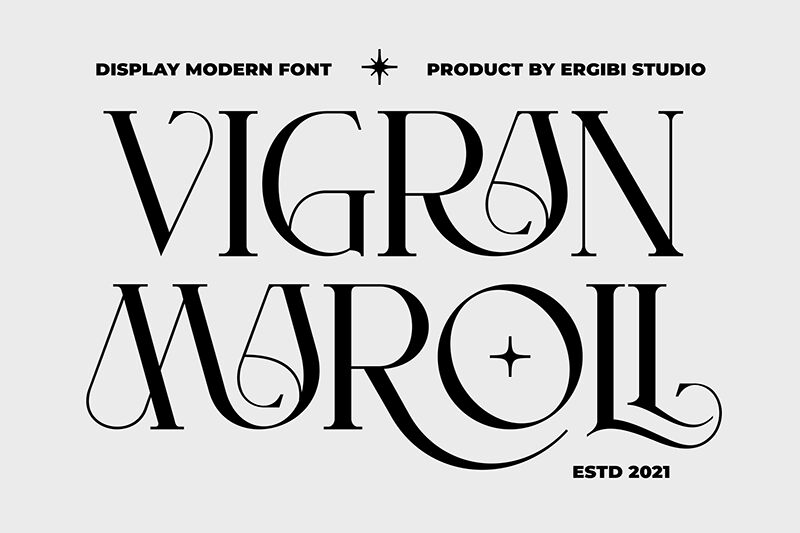
Introducing Vigran Maroll, a light and modern sans serif designed by Riyadh Rahman. This versatile font is great for creating eye-catching logos and titles, or adding a touch of elegance to posters and websites.